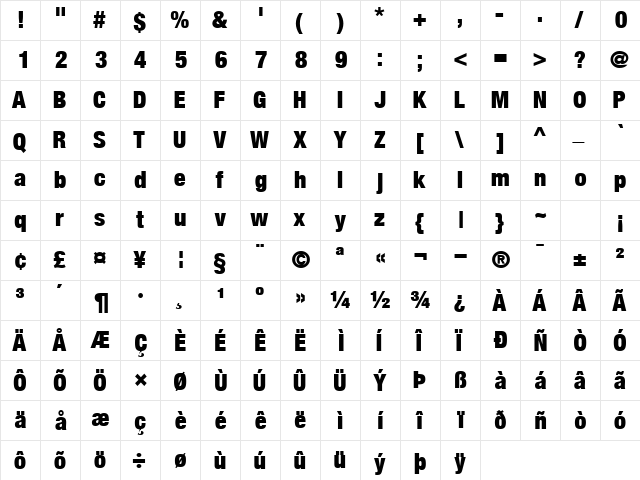
ContextRepriseBlackCondSSK Bold Font Preview
ContextRepriseBlackCondSSK Bold
Design Context for ContextRepriseBlackCondSSK Typeface
ContextRepriseBlackCondSSK offers clean, dependable letterforms without strong stylistic allegiance, making it a practical choice for designers who need flexibility. Its bold stroke weight gives it real presence on the page. The condensed width makes it efficient for tight spaces without sacrificing legibility.